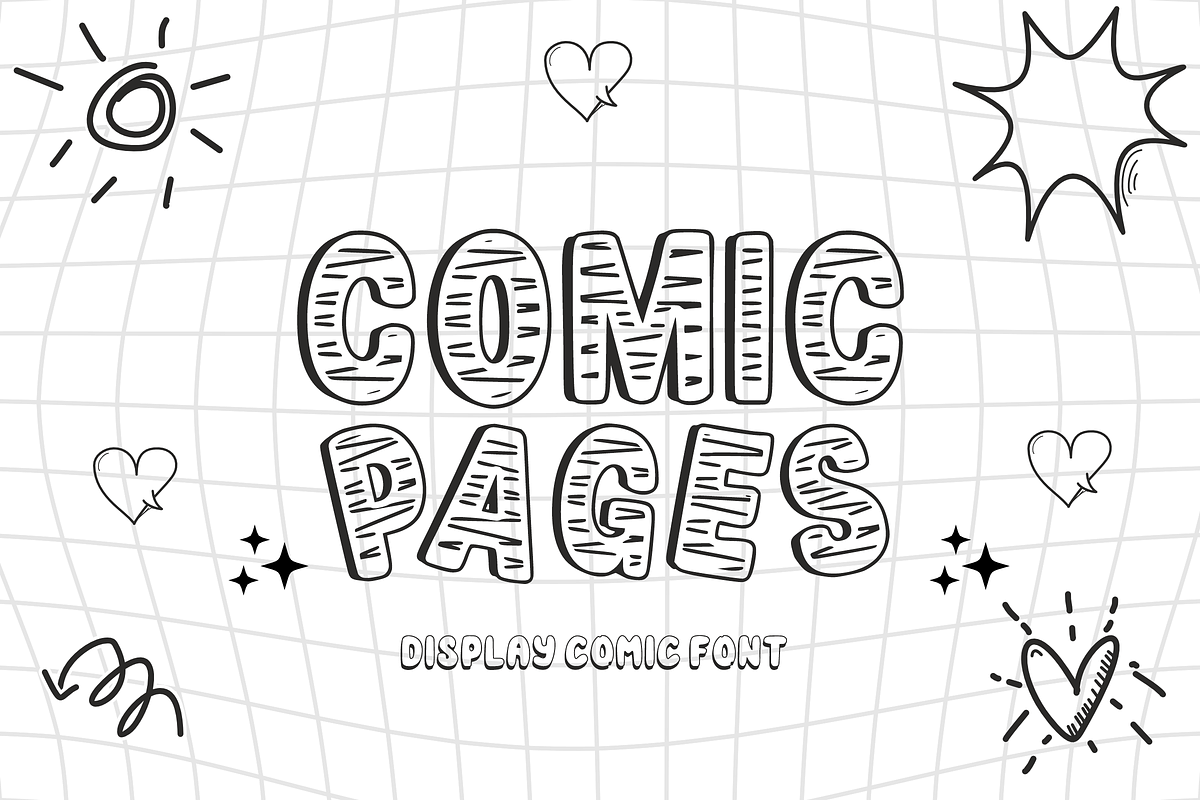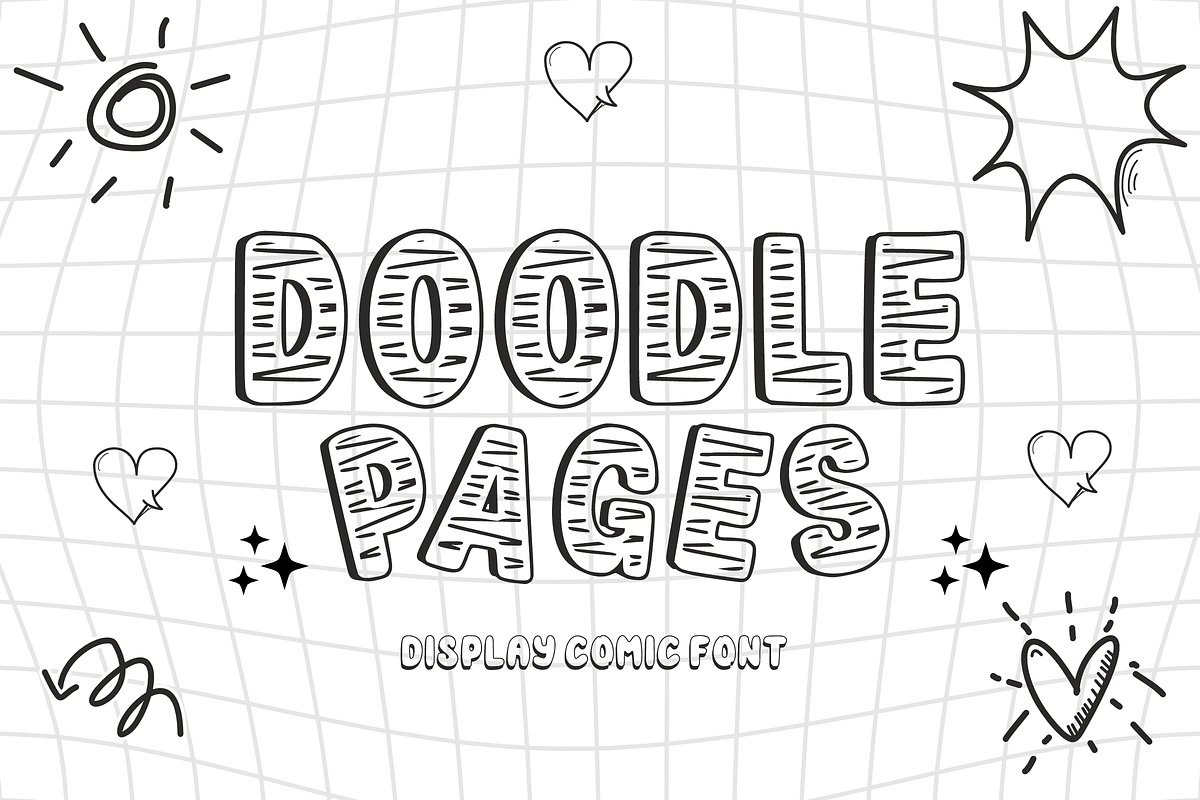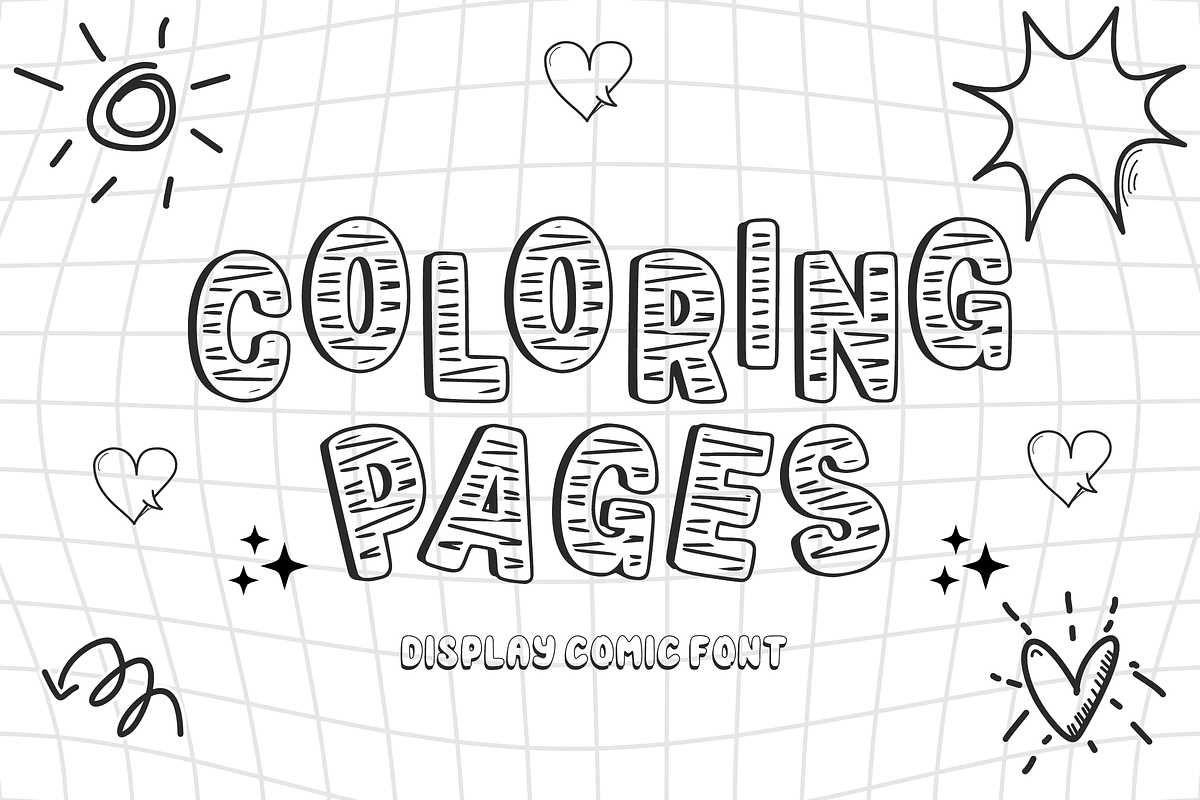
Coloring Pages - Playful Scribble
Coloring Pages - Playful Scribble Display Font Bring your designs to life with Coloring Pages, a whimsical and energetic display comic font! Designed with a unique hand-drawn "scribble" texture, this font perfectly captures the joy of a creative activity book. Each letter is crafted with bold outlines and a sketchy interior, giving your text a vibrant, DIY personality that pops off the page.
Whether you are creating actual coloring books, classroom materials, or fun social media graphics, Coloring Pages adds a touch of handmade charm that is both friendly and eye-catching.
Why You'll Love It: Unique Texture: Features a charming "hatched" or scribble-filled style that mimics hand-coloring.
Highly Versatile: Perfect for headlines, posters, and kids' products.
Complete Set: Includes uppercase letters, numbers, and essential punctuation to cover all your design needs.
Perfect For: Coloring Books & Activity Sheets: The ultimate choice for children's printables.
Classroom Decor: Create engaging posters, banners, and teacher resources.
Kids' Branding: Stand out on toy packaging, clothing, and birthday invitations.
Comic & Graphic Novels: Add a playful, sketchy vibe to your storytelling.
Social Media: Eye-catching quotes and YouTube thumbnails.